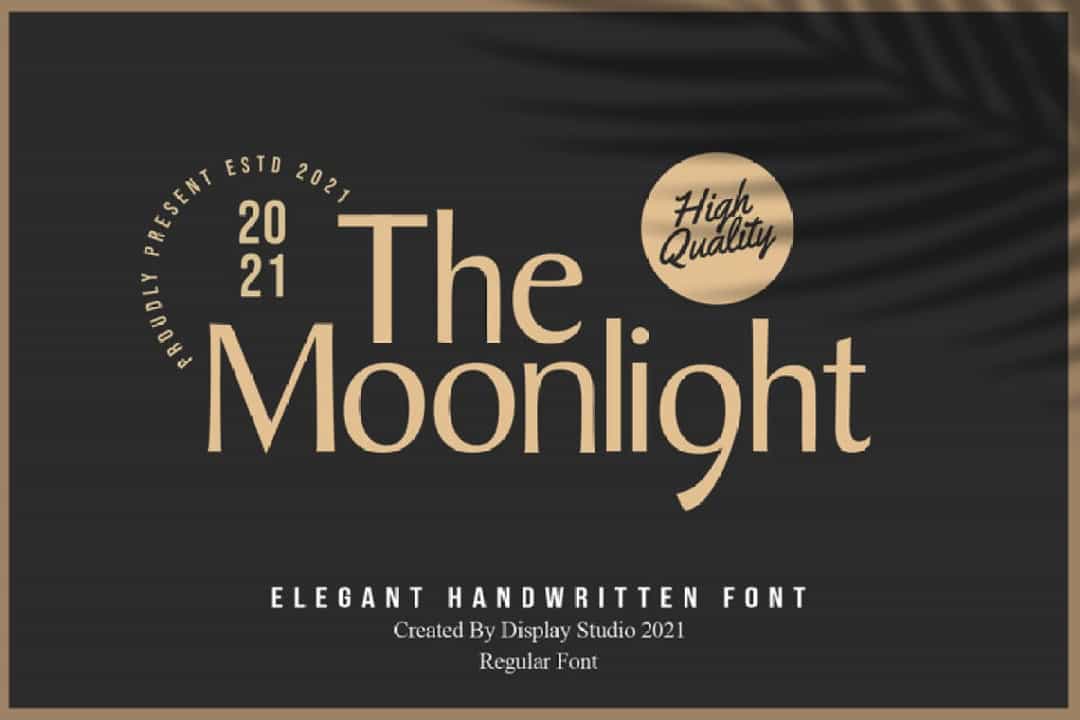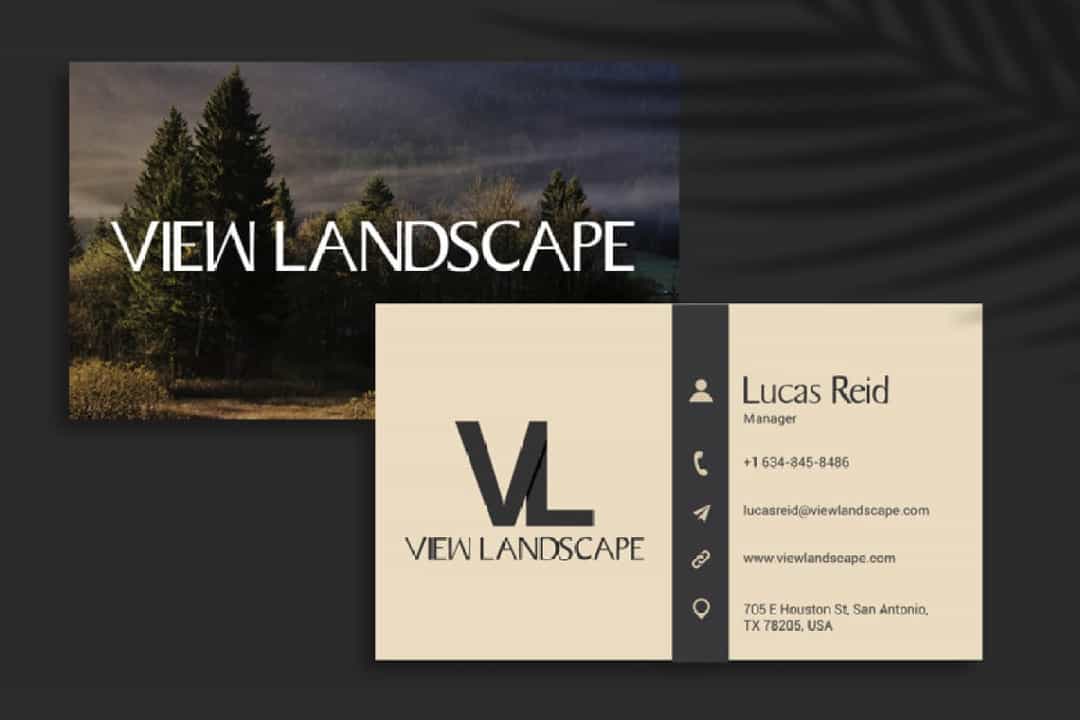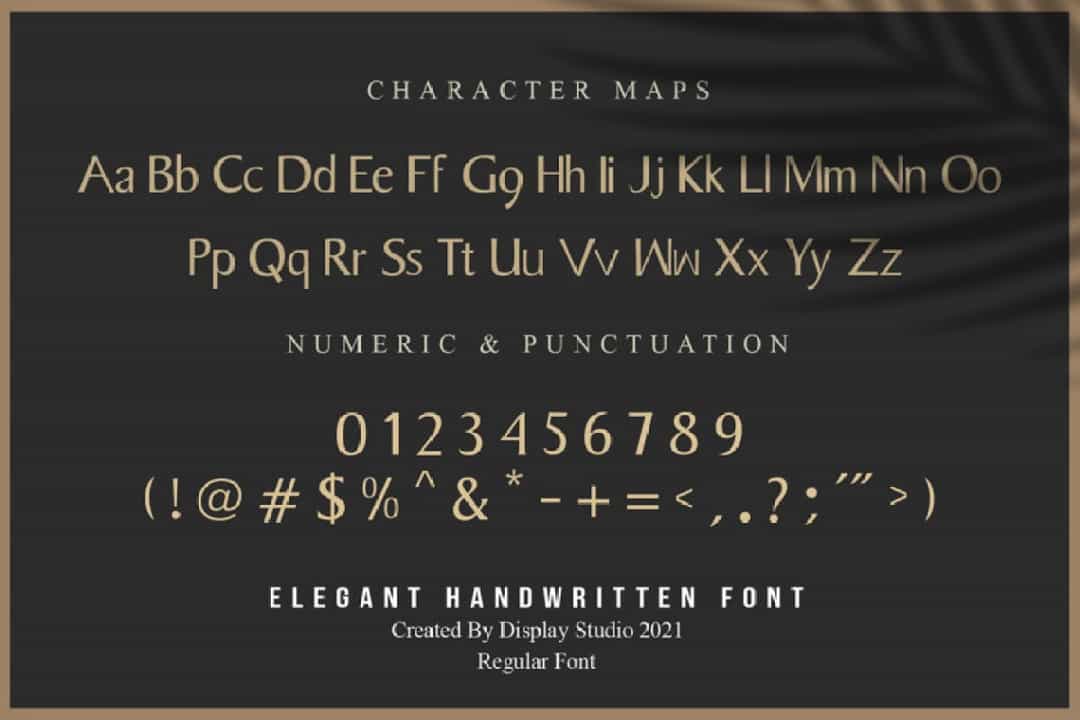
Discover The Moonlight Font, part of the Sans Serif collection—a versatile and unique font perfect for adding a personal touch to your projects. Download it for free and enjoy crafting designs with style, from invitations to social media posts. This font is available exclusively for personal use, giving you the freedom to create without limits. Unlock your creativity with The Moonlight Font today!
Moonlight Elegant Sans Serif Font is the ideal typeset for creating logos, invitations and greeting cards, among other types of design projects. Boasting multilingual features and various styles this typeface adds aesthetic value to your project.